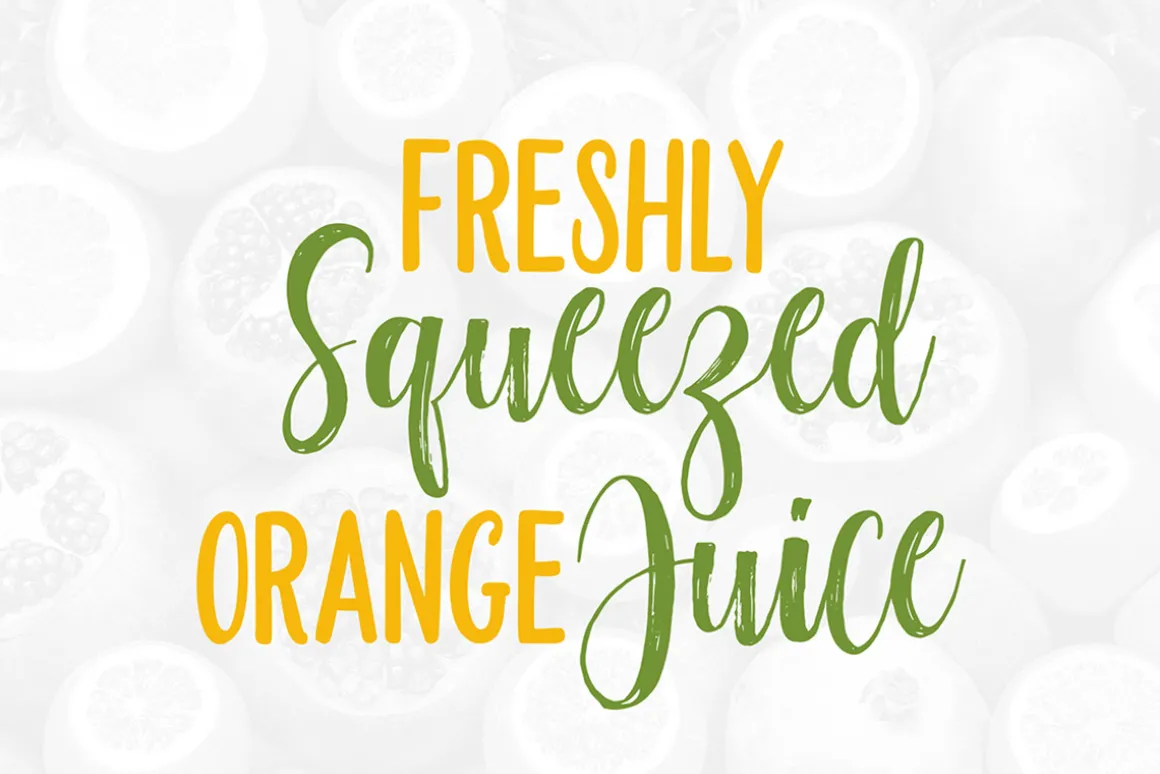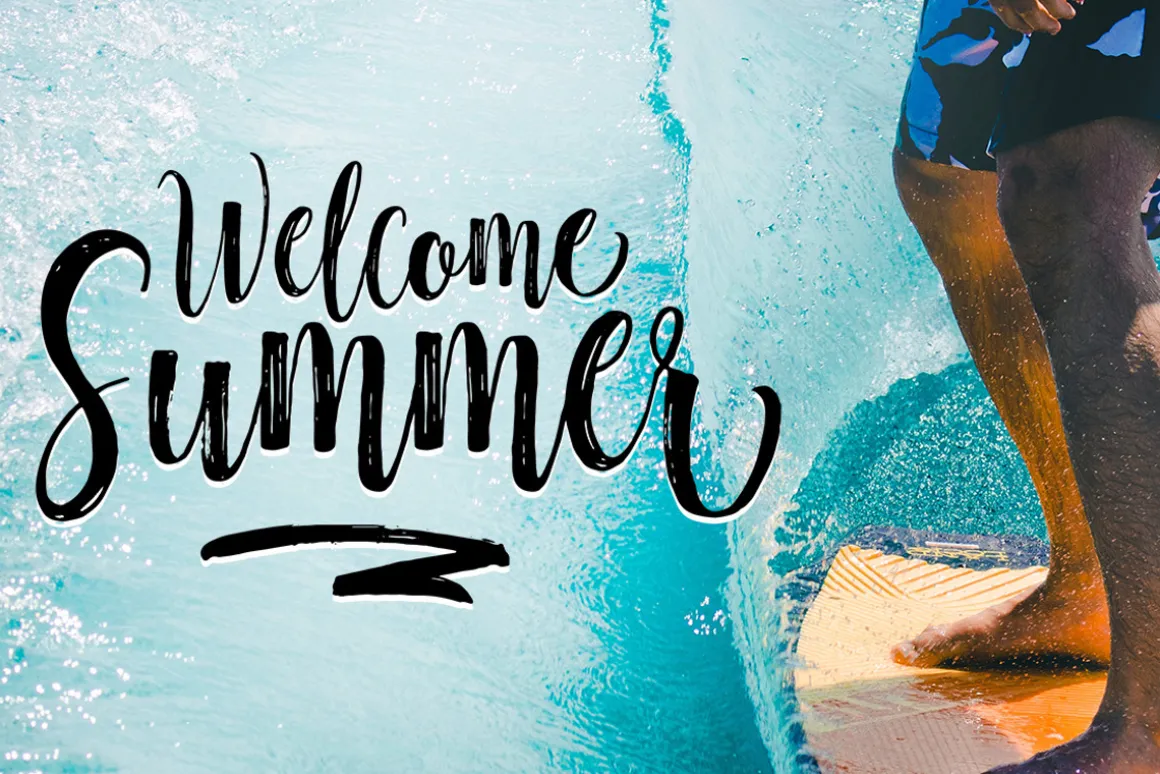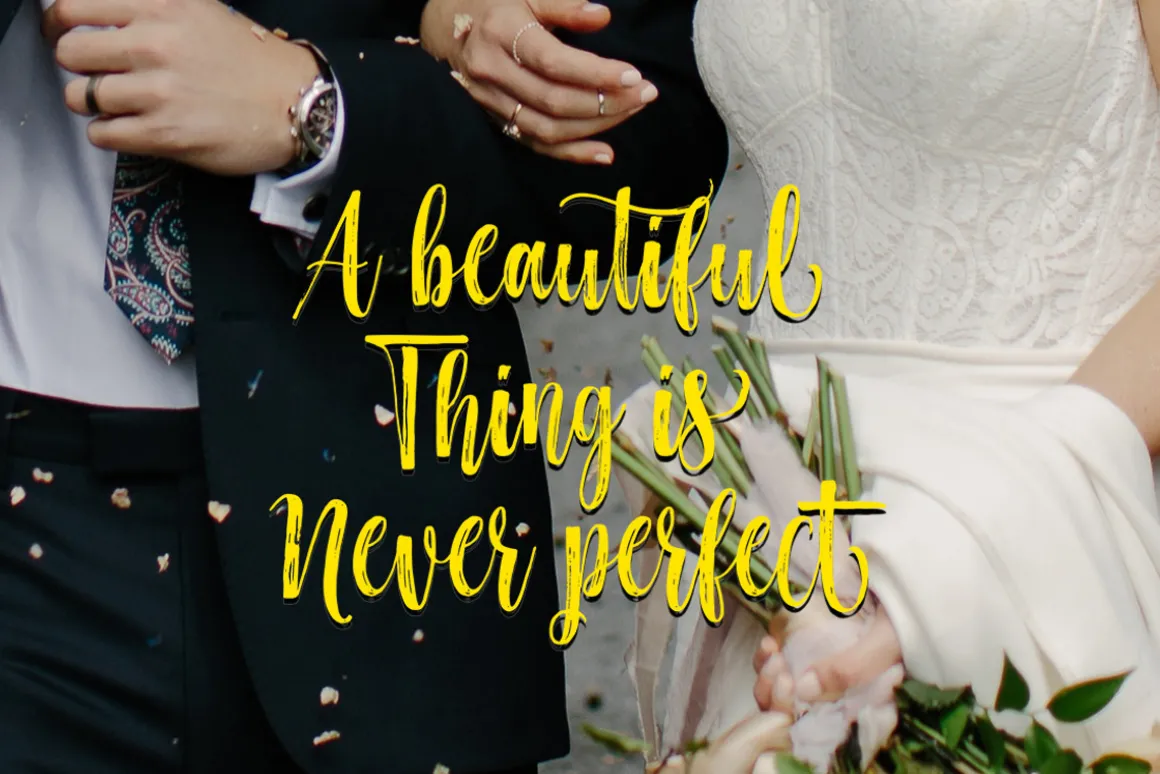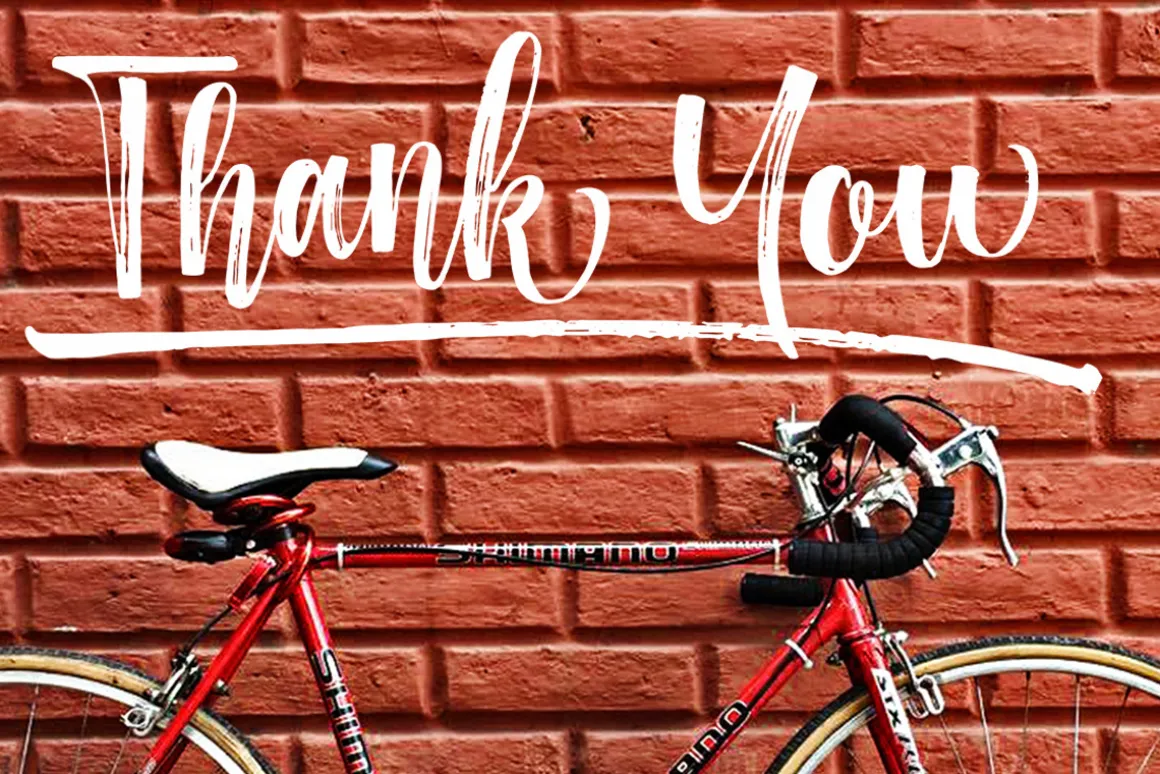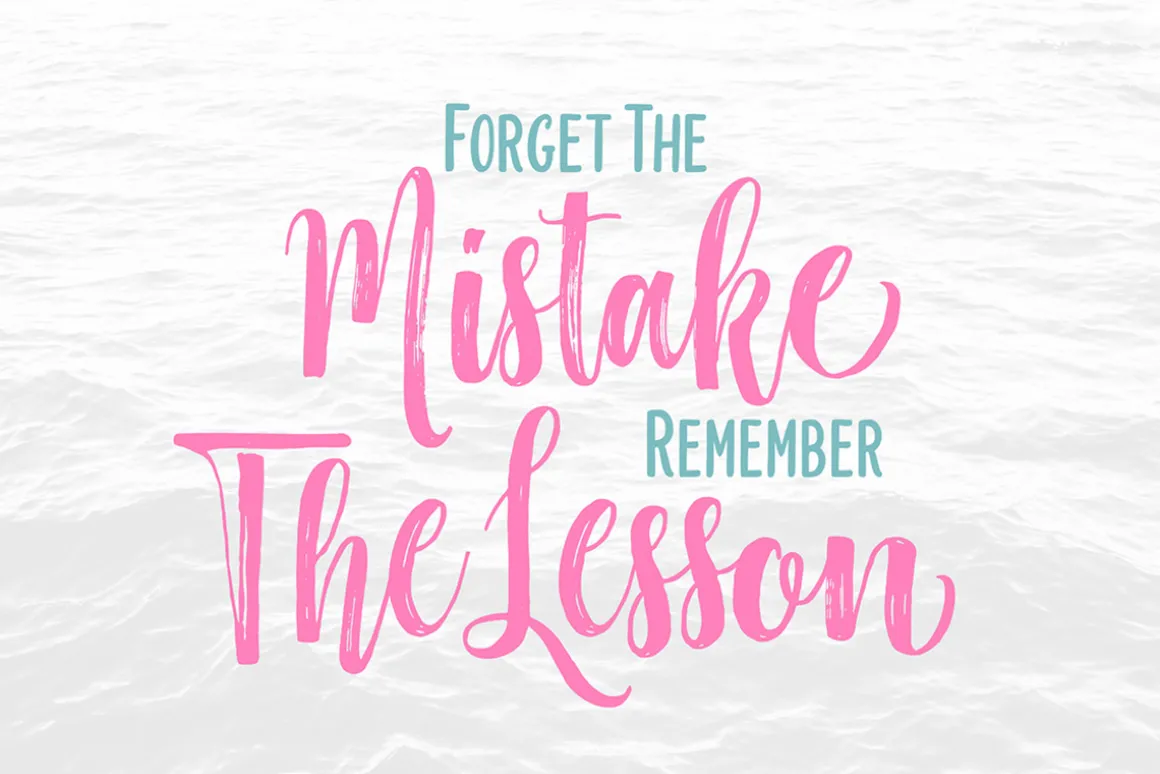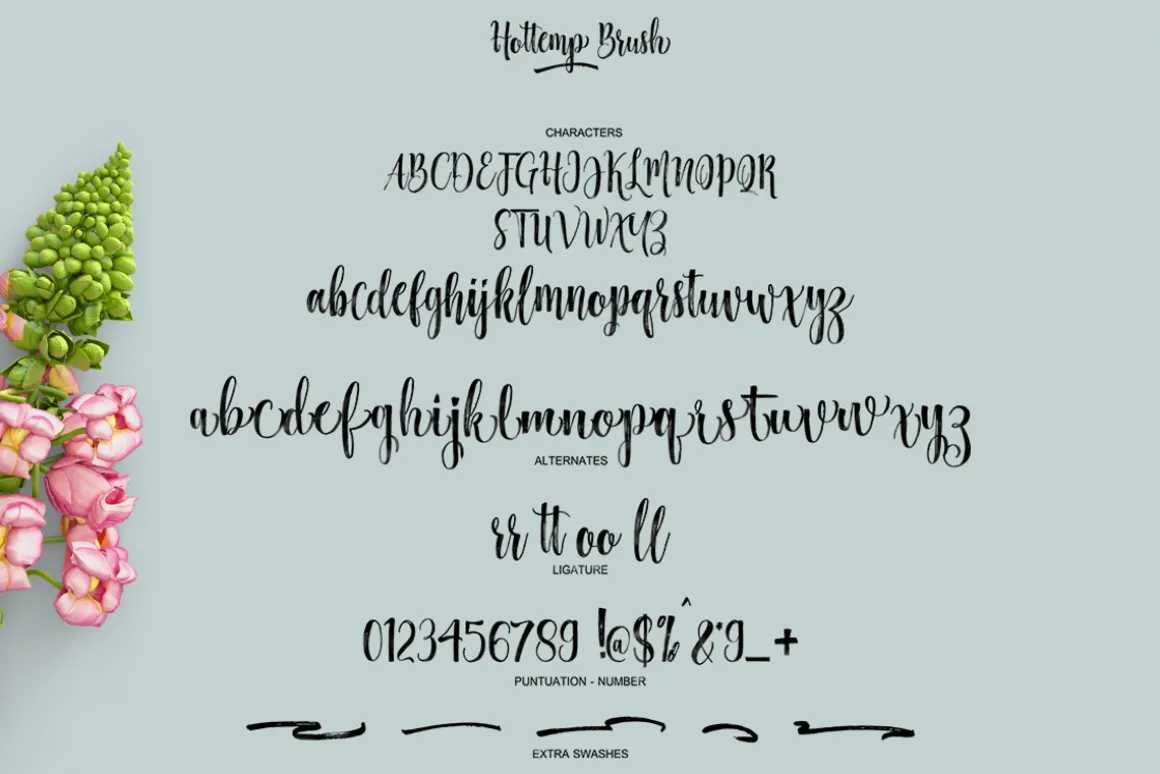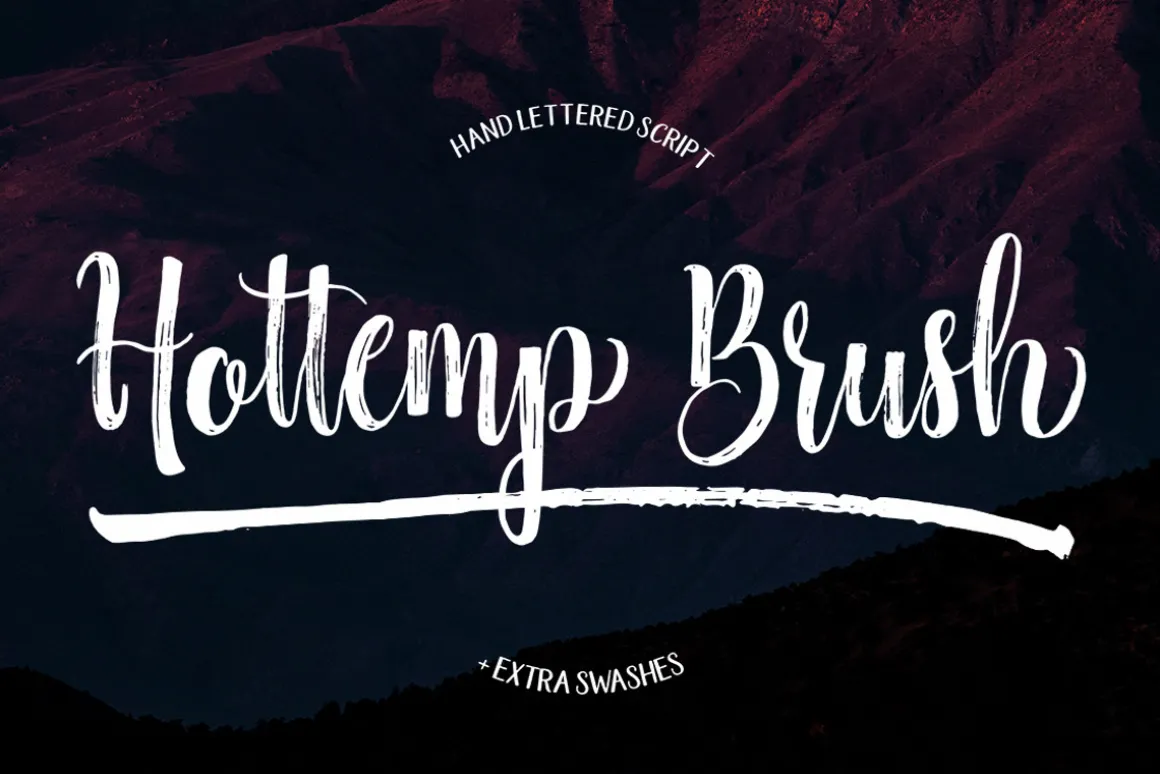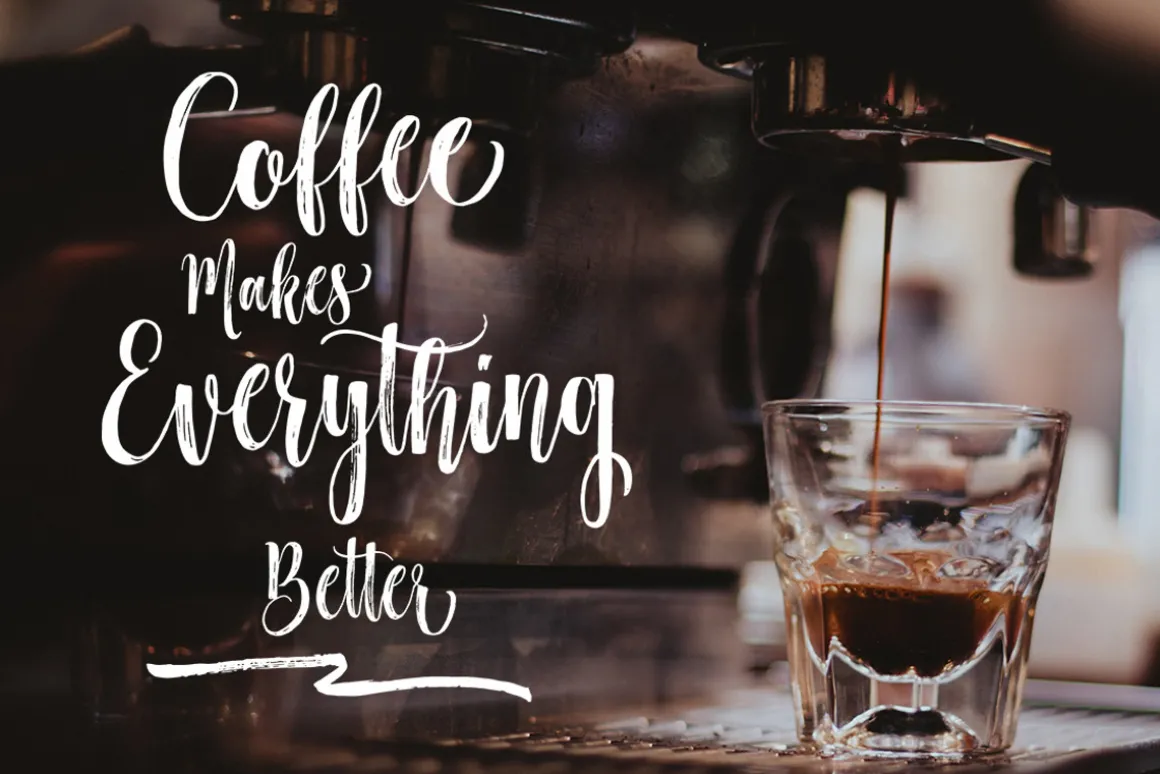
Hottemp Brush – Font Duo
New font brushed very interesting, also provided some ligatures and swashes extra. Also with additional Hottemp Display, a font sans harmony to be combined with Hottemp Brush. Perfect for projects brands, logos, product packaging, posters, invitations, greeting cards, news, blogs, everything including personal charm etc.
Hottemp Brush features Open type feature, including initial and terminal letters,ligatures and International support for most Western Languages is included.